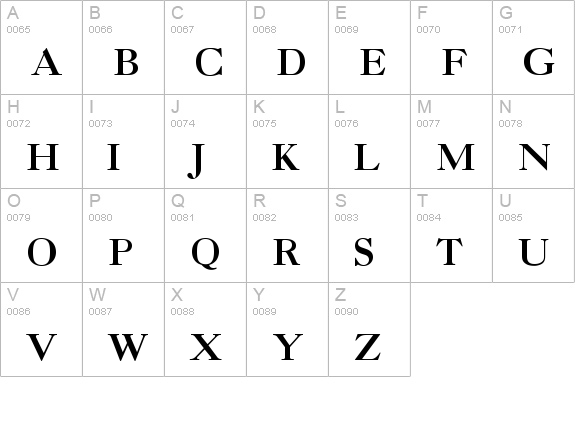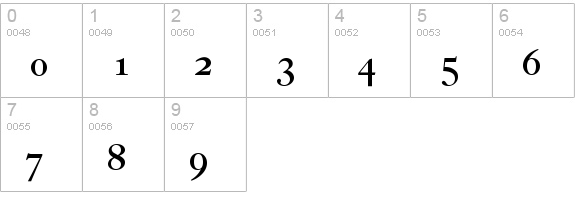
CaslonBoldZH Font Details
CaslonBoldZH is a bold and striking font that exudes elegance and sophistication. With its timeless appeal and classic design, this font is perfect for adding a touch of refinement to any project. The sharp serifs and clean lines give CaslonBoldZH a strong presence on the page, making it ideal for headlines, titles, and other important text elements. What sets CaslonBoldZH apart is not only its stunning design but also the fact that it is a free font. That's right, you can download CaslonBoldZH for free at FontsMarket.com. This means that you can enhance your designs with this beautiful font without breaking the bank. Whether you're working on a professional project or a personal creative endeavor, CaslonBoldZH is sure to elevate your work and make a lasting impression. Download CaslonBoldZH today and see for yourself the impact this font can have on your designs.